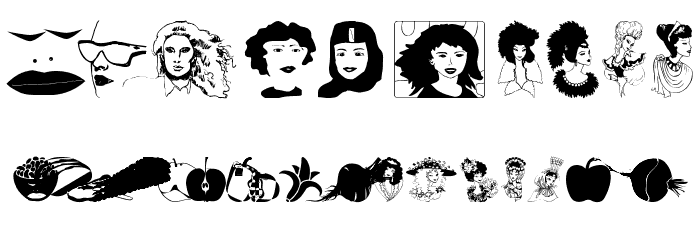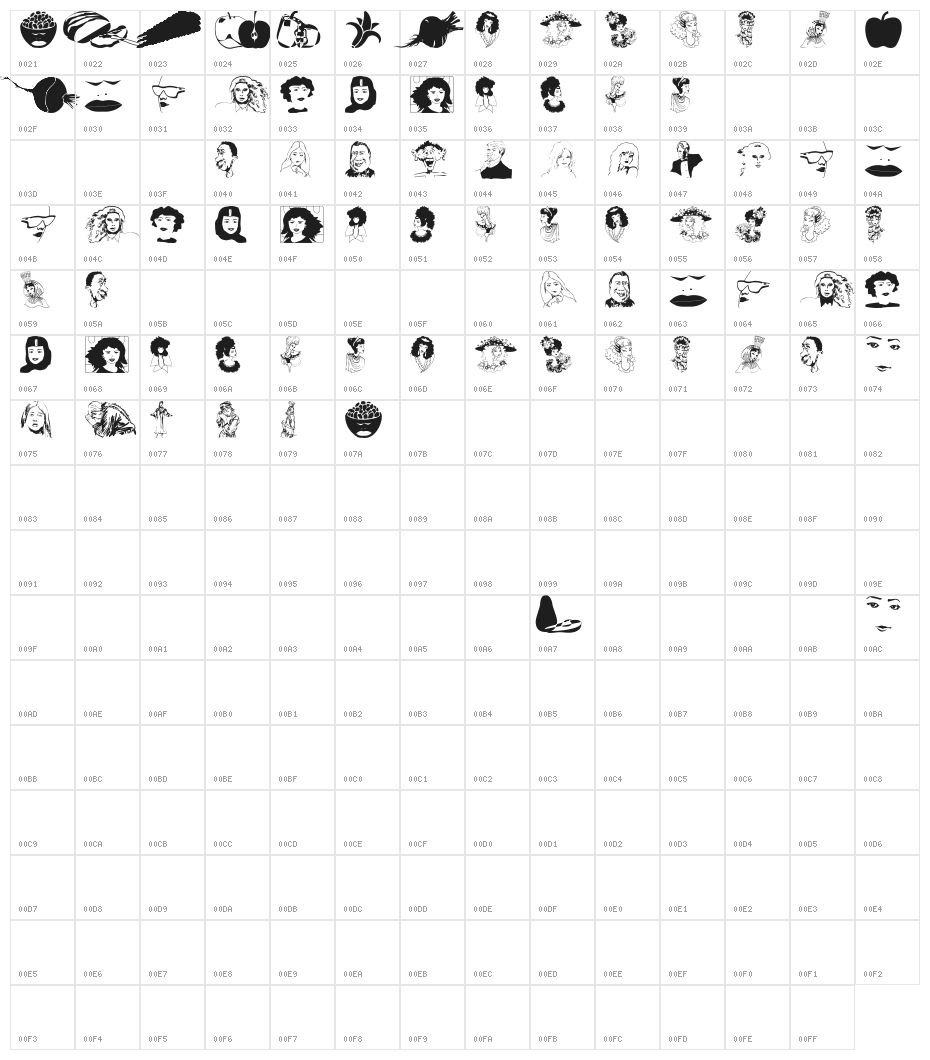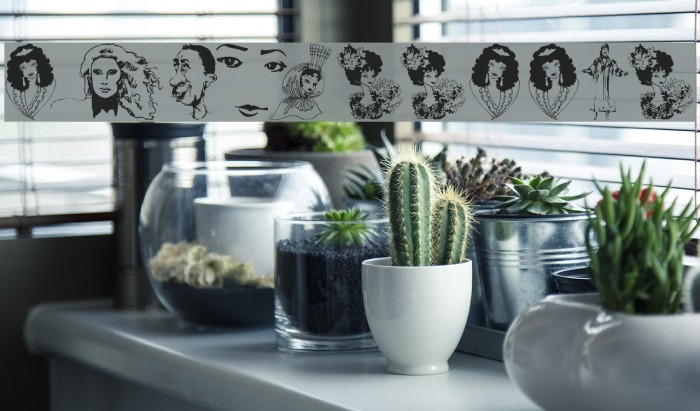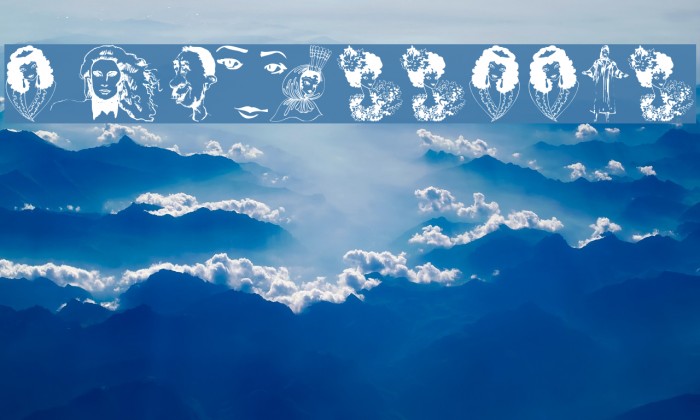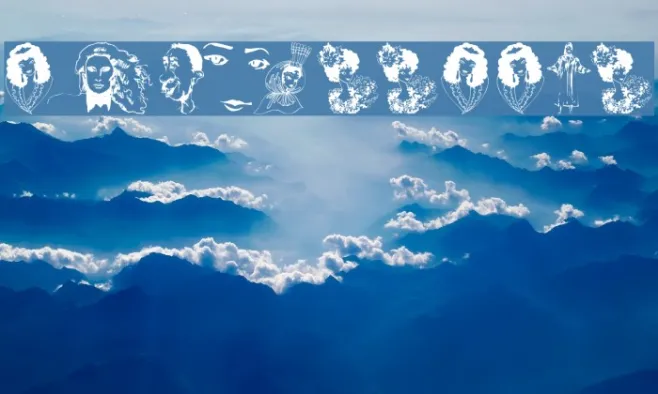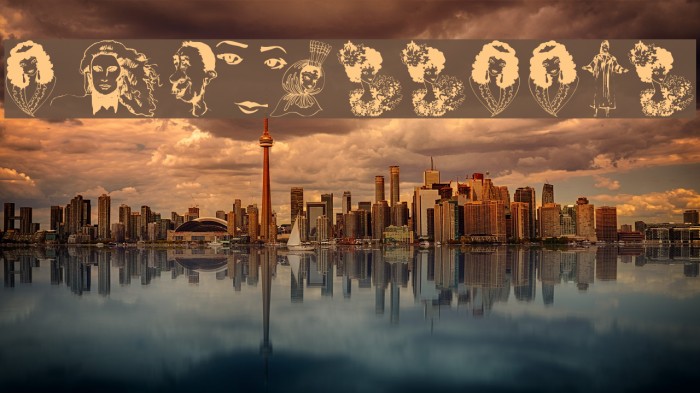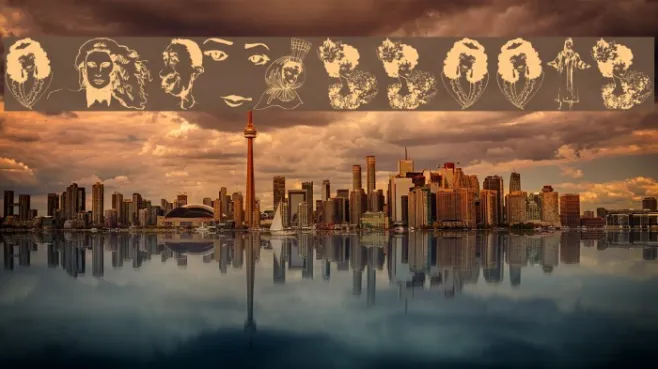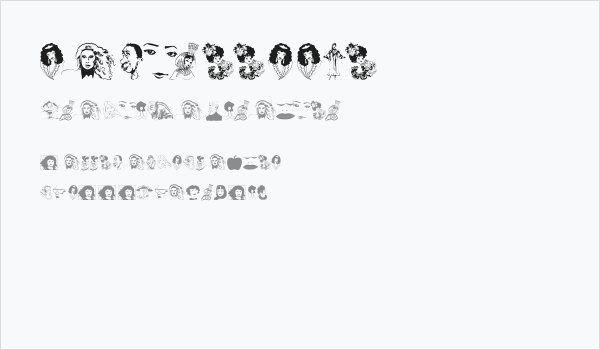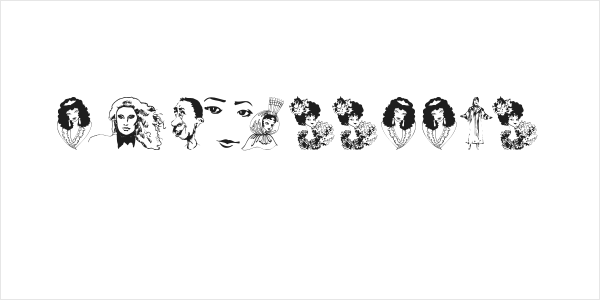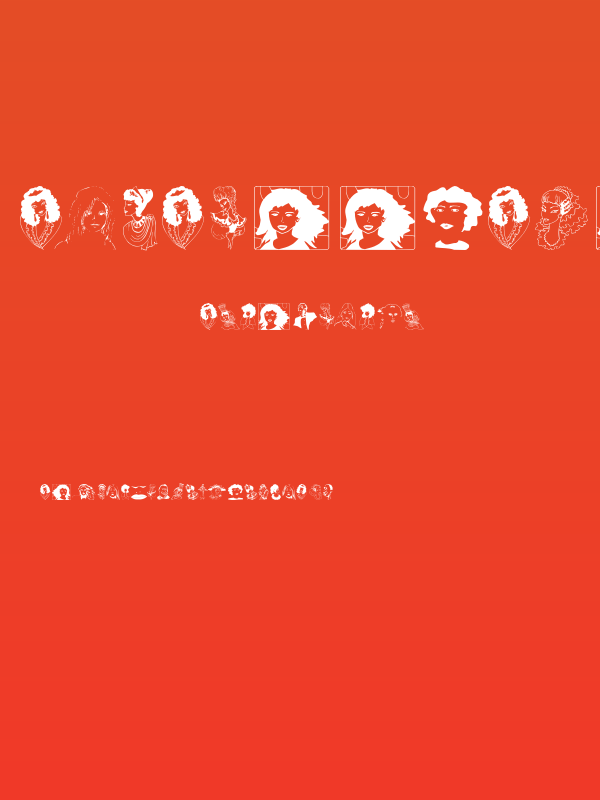
TestroomTwo Font
TestroomTwo Description
A decorative display typeface composed entirely of illustrated portraits, faces, and some objects, with each character represented by a unique, detailed black-and-white drawing rather than traditional letterforms.
| Overall Style | Decorative, Artistic, Illustrative |
| Use Case | Logos, Headlines, Posters, Art projects |
| Proposed Projects | Art posters, album covers, creative branding, editorial illustrations, unique invitations. |